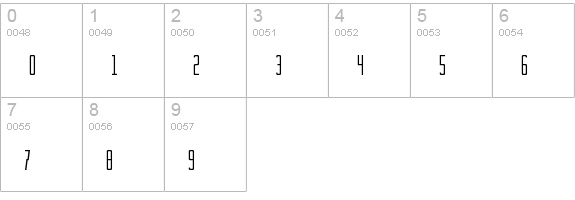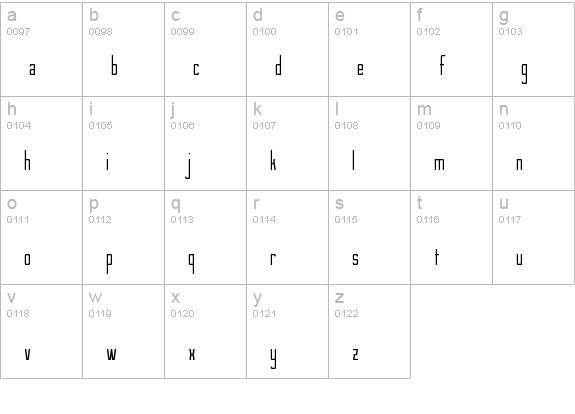
See You At The Movies Regular is the standard, neutral variant in the See typeface family \xE2\x80\x94 well suited to general body text, paragraphs, and standard typographic work.